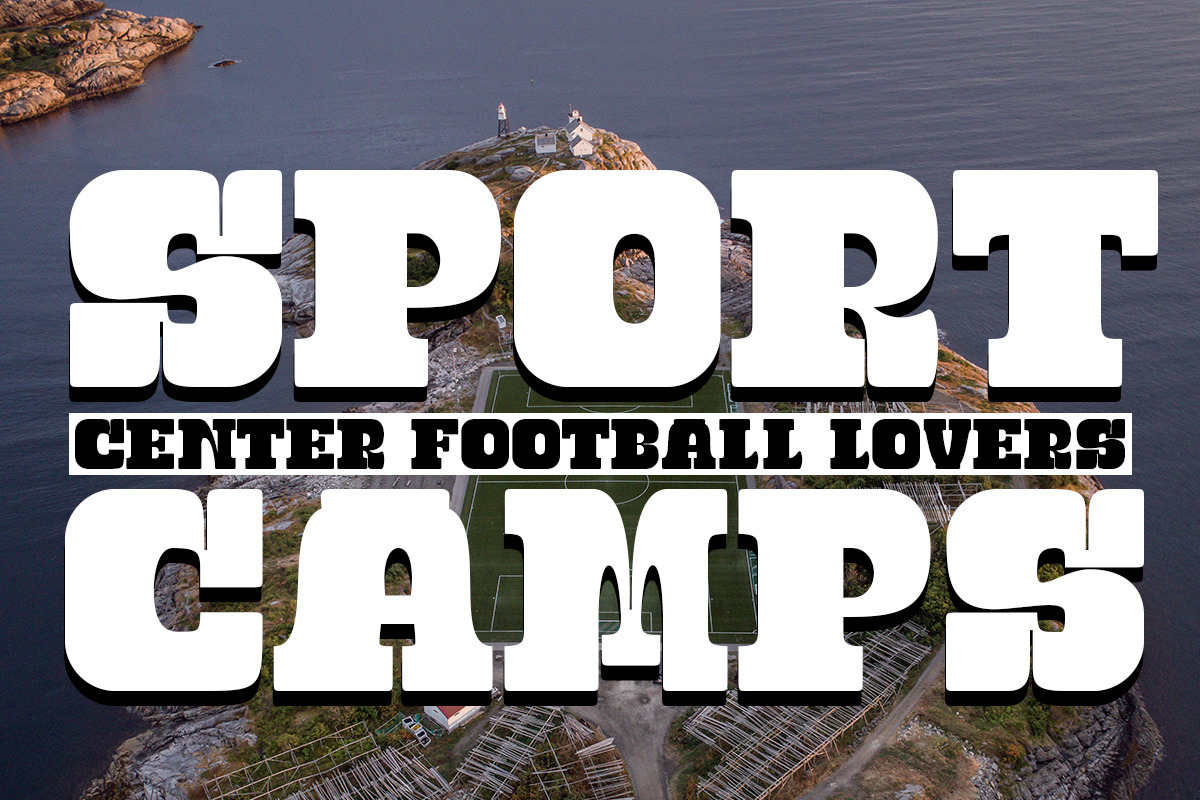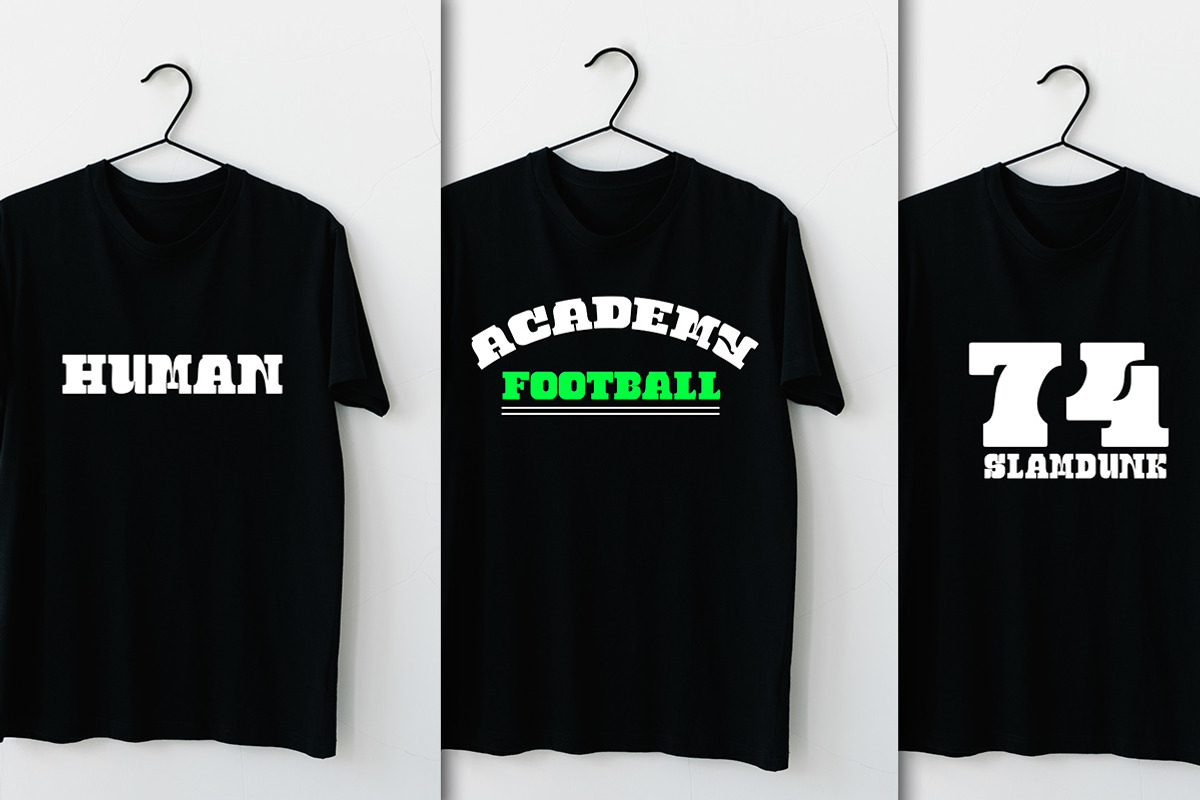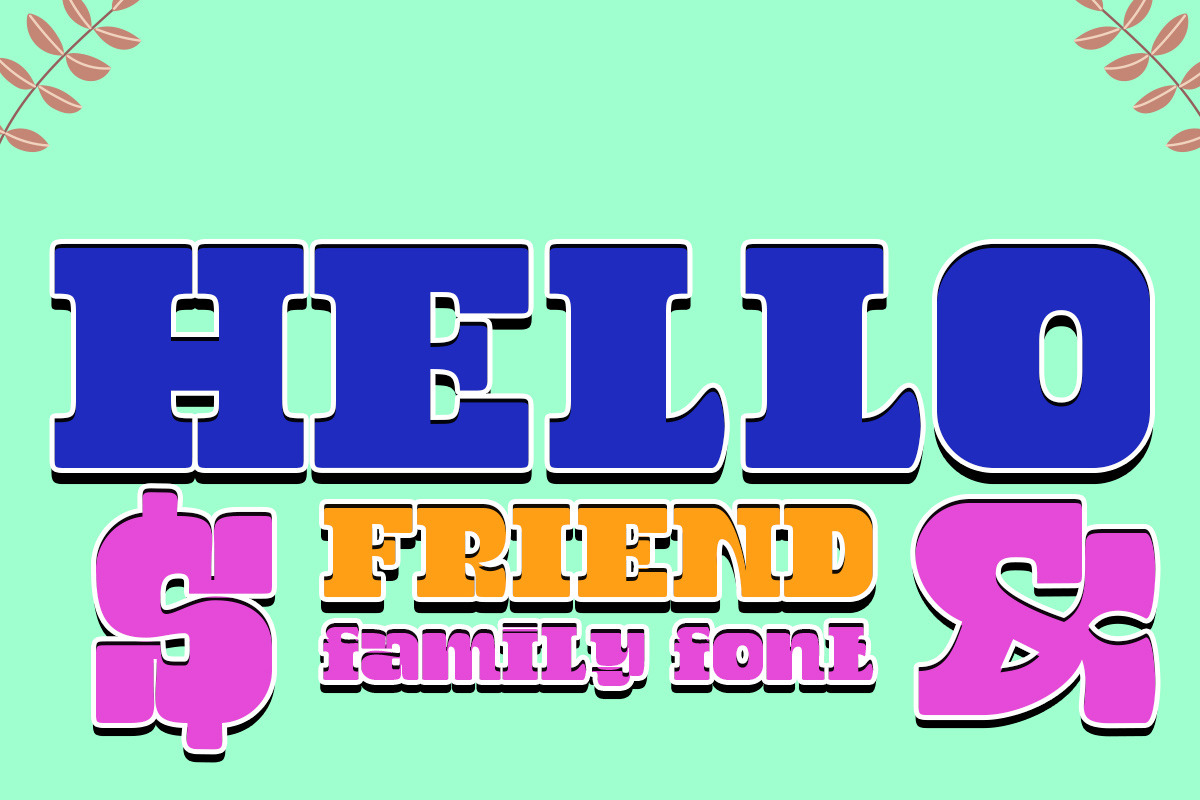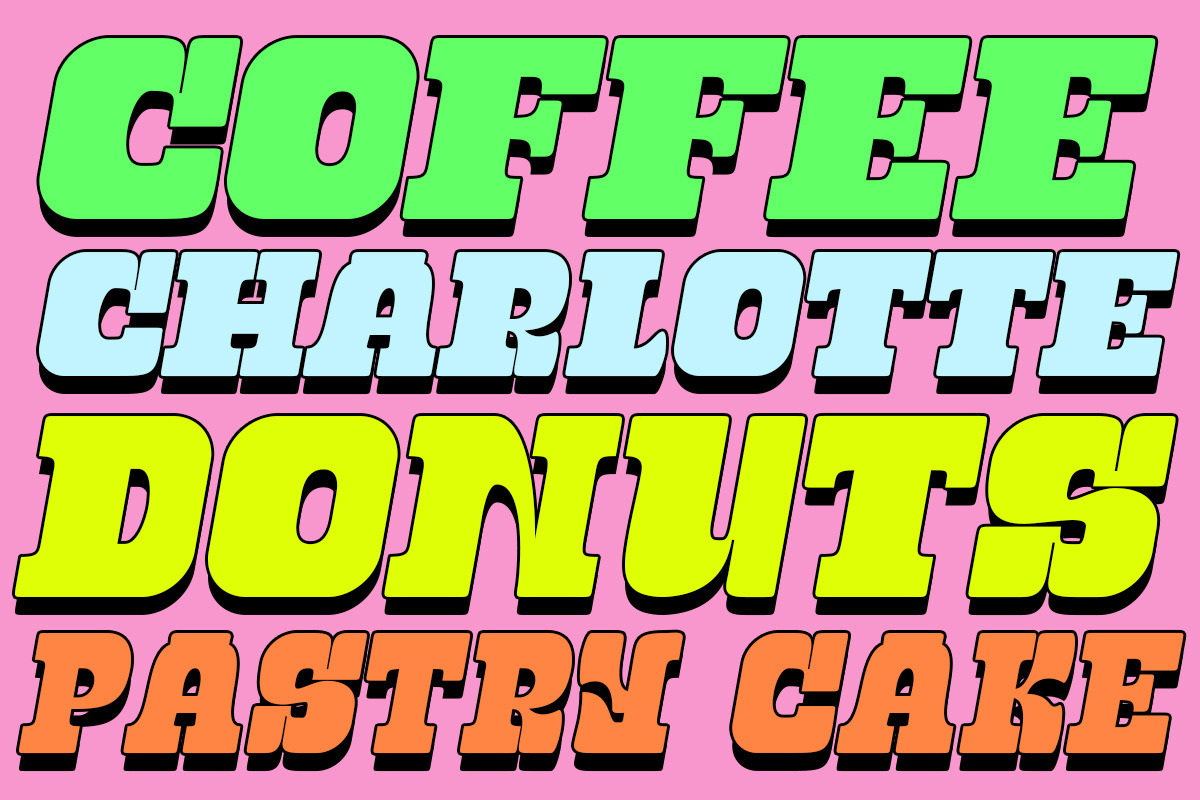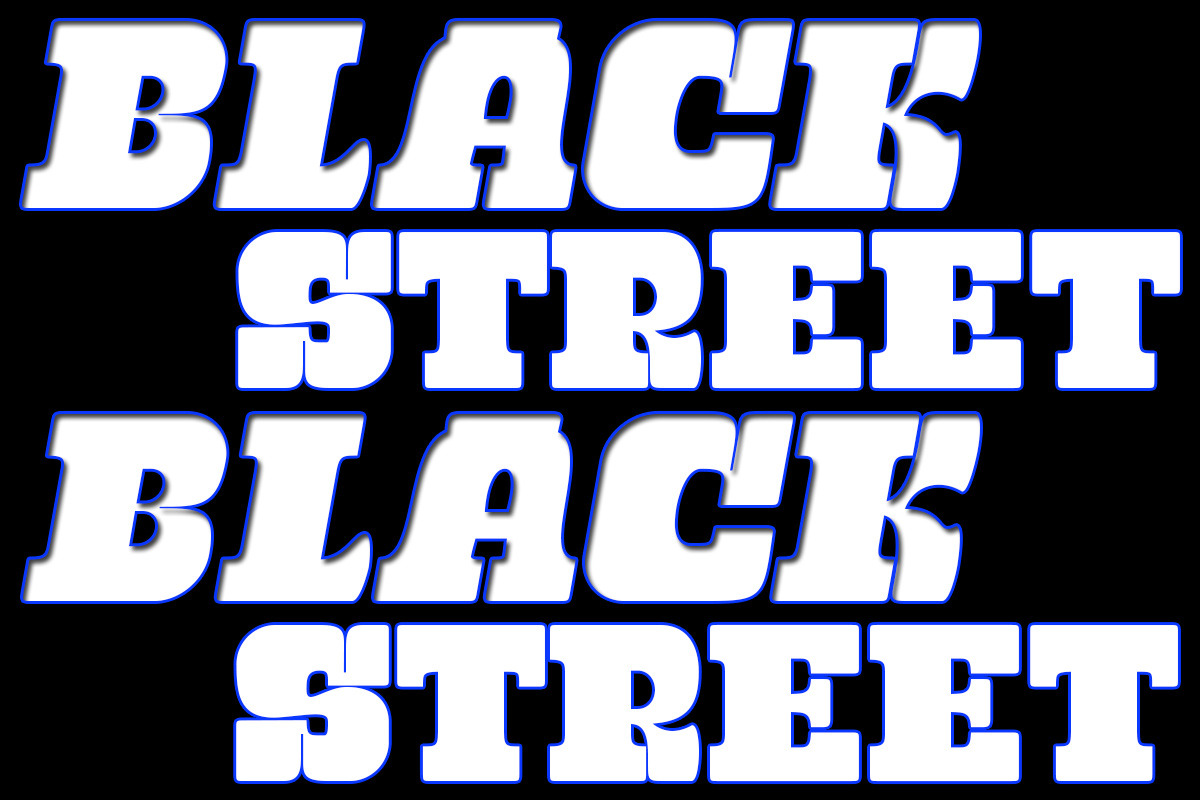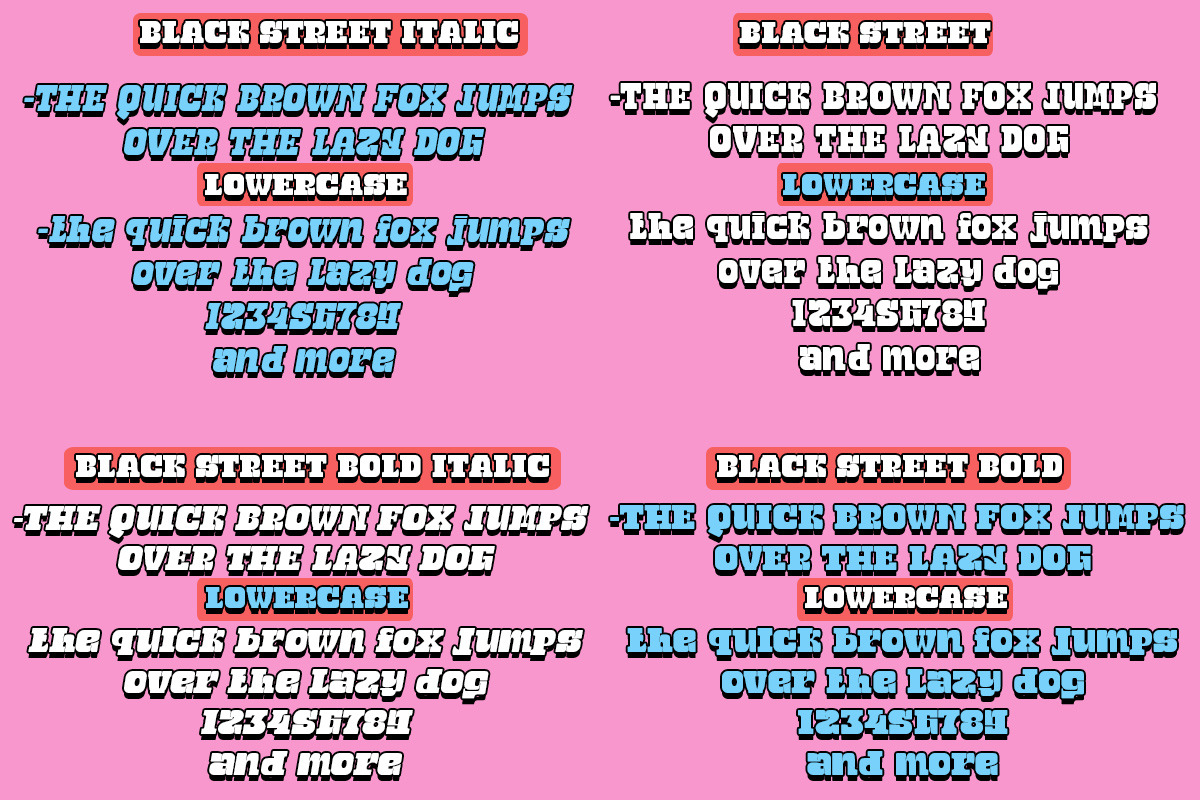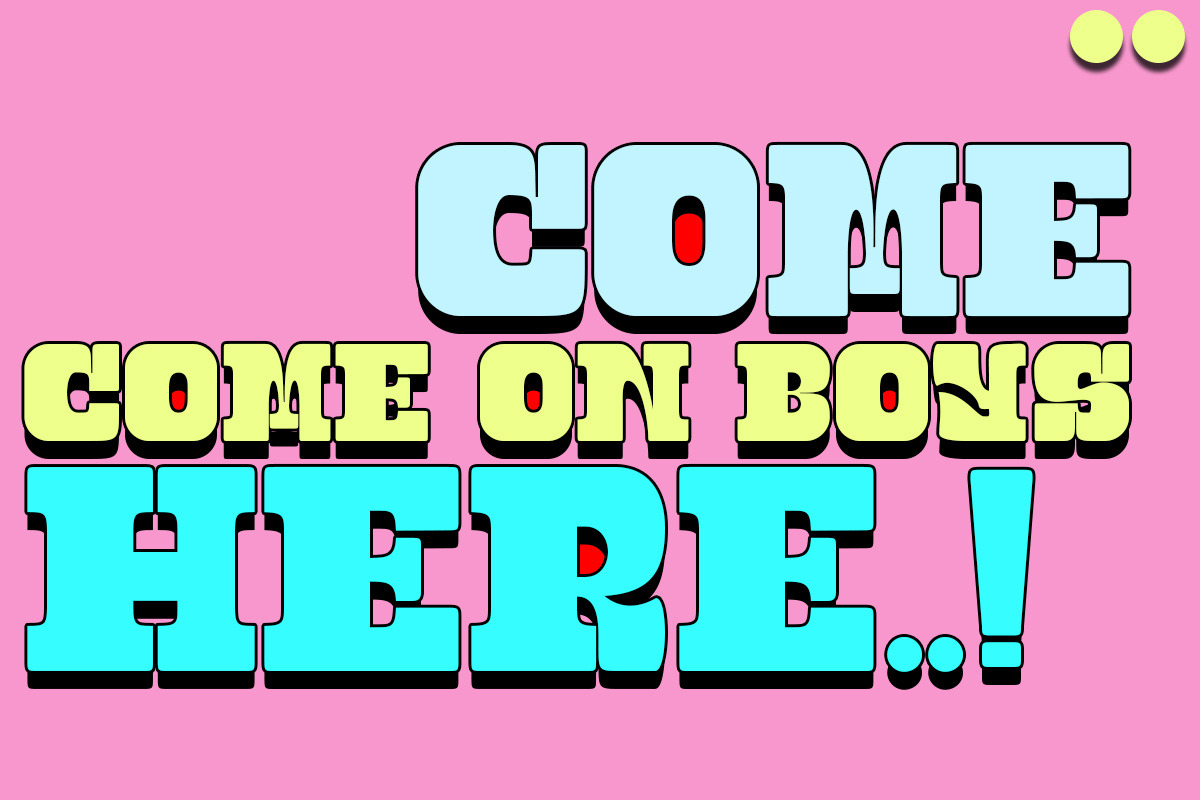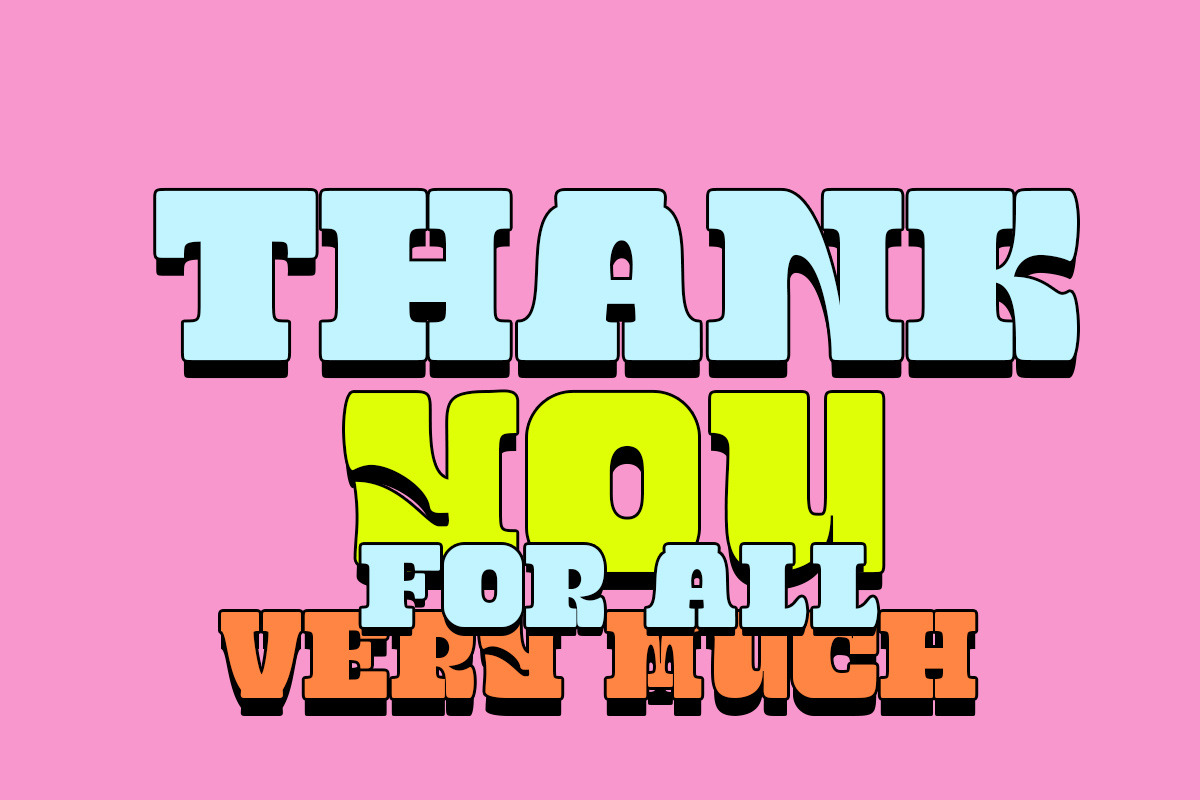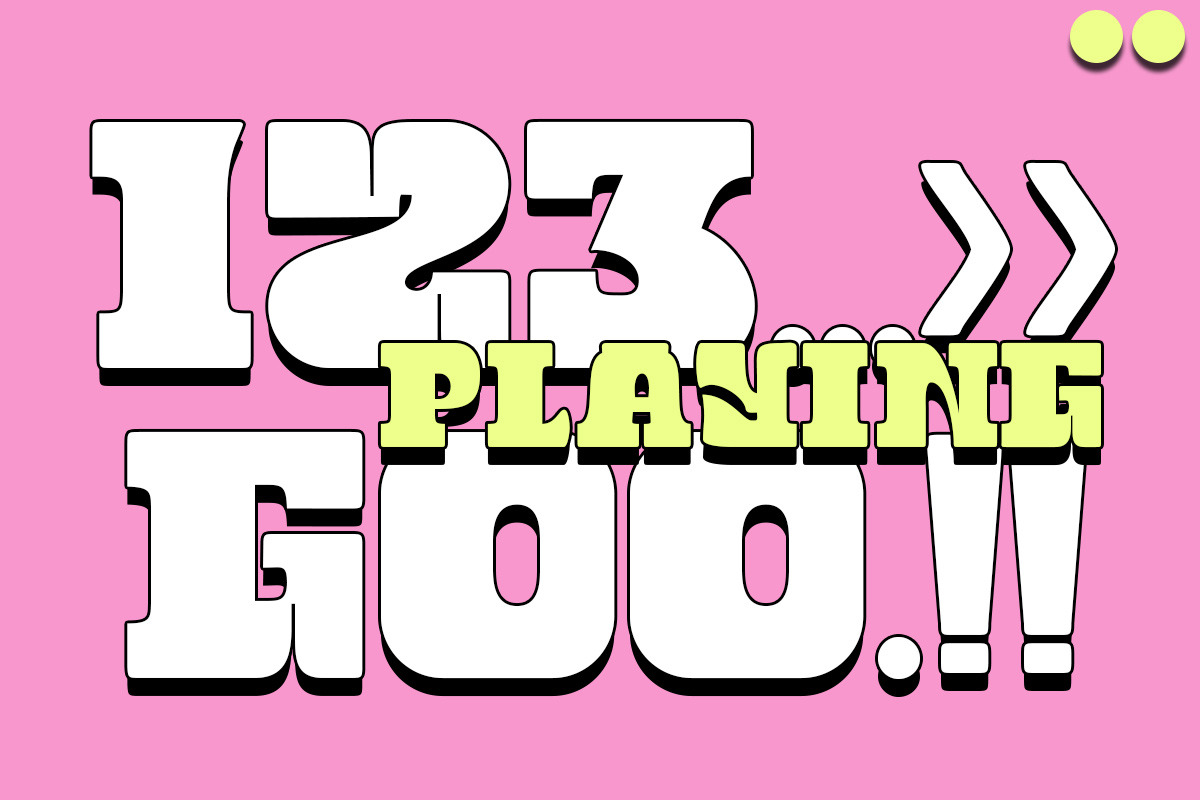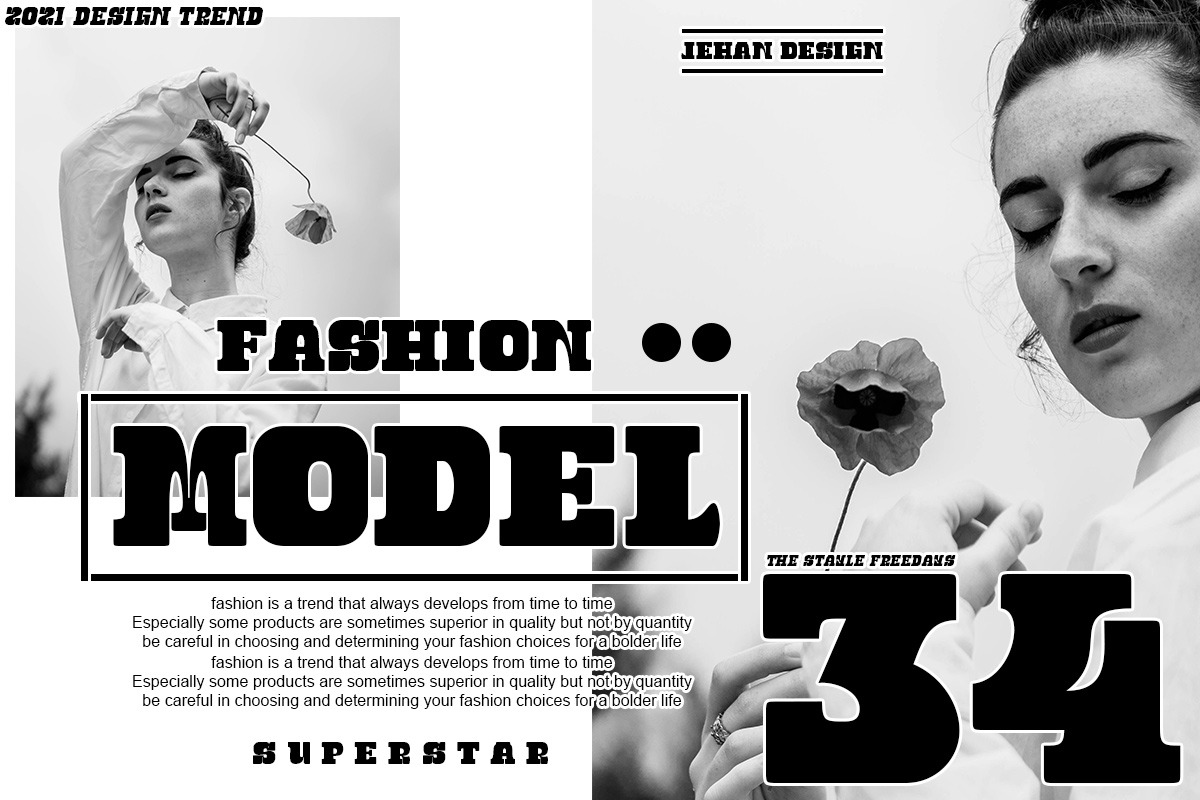
Black Street
Black Street it is a bold bold font, making it a very stylish font yet capable of conveying a wonderfully cheerful feel, use capital letters for the style you want
Black Street with a modern feel that is displayed will make your design look more daring and dashing, there is authority in your design make sure you don't miss it